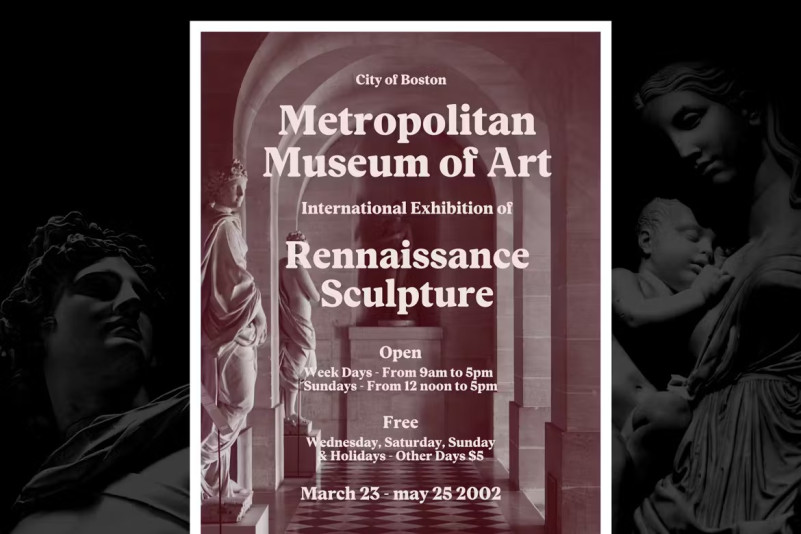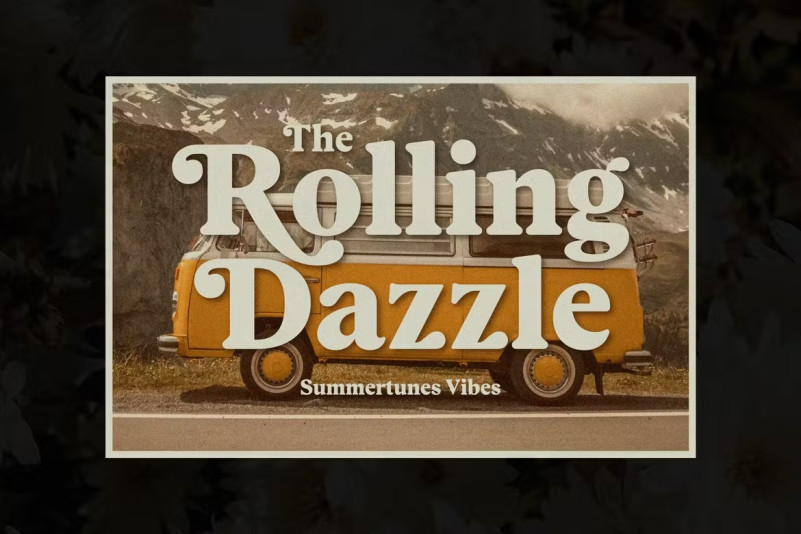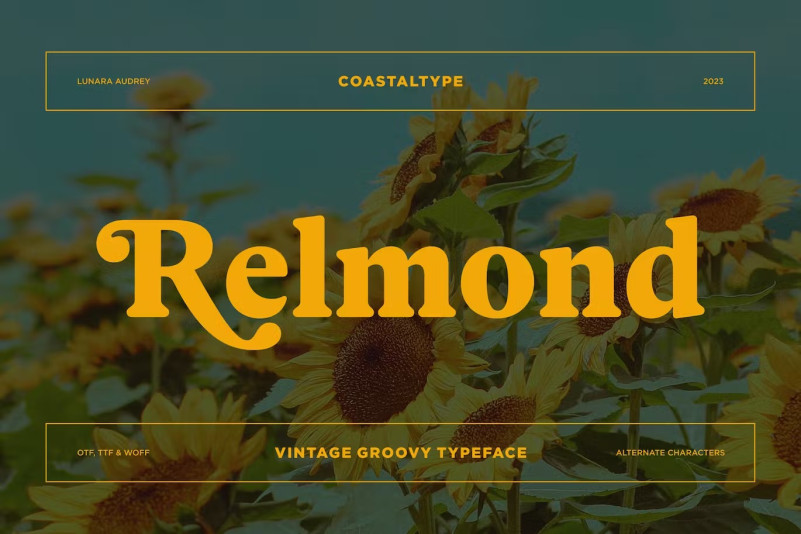
Relmond Font
Relmond Font is a display rounded serif font inspired by typefaces from the 1970s. Despite its vintage style, the Relmond font fits well in any contemporary setting with rounded serifs and a plush overall look.